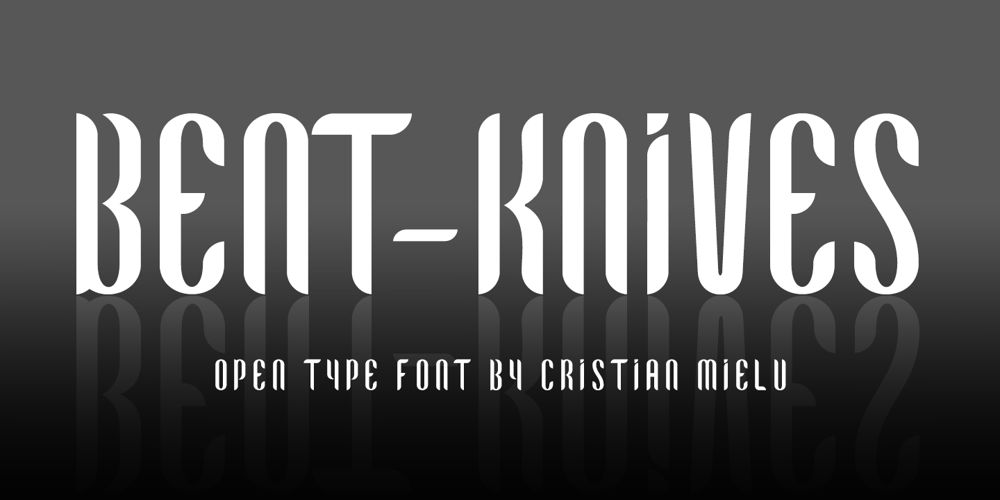
Bent Knives Font Family was designed by Cristian Mielu and published by Cristian Mielu. Bent Knives contains 2 styles and family package options. Bent Knives is a font family, containing 4 weights: Bold, Medium, Regular and Light, 375 glyphs each one of them. The shapes of Bent Knives font, are inspired, as the name sais, after the knives which have bent tops. Bent Knives was created to suit perfectly as a logo font for a butchery, burger house, steak house and many other activities with a relative profile. Of course, Bent-Knives is versatile and can be a perfect choise for other type of businesses to. Bent Knives supports a wide variety of Latin from Latin0 to Latin10, Windows Latin and Macintosh Latin.